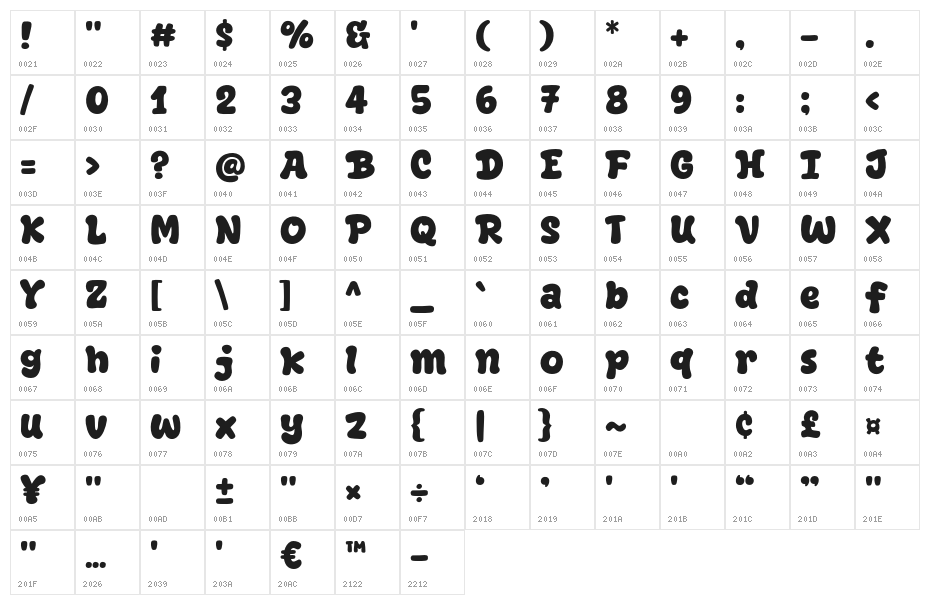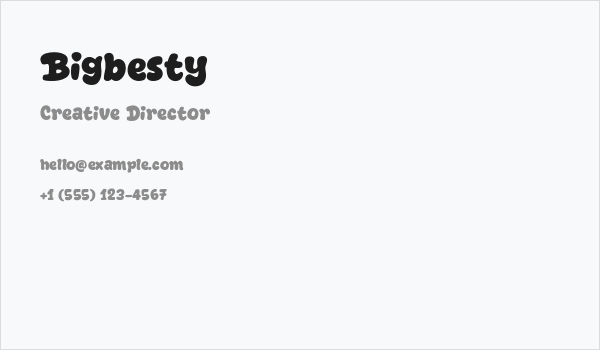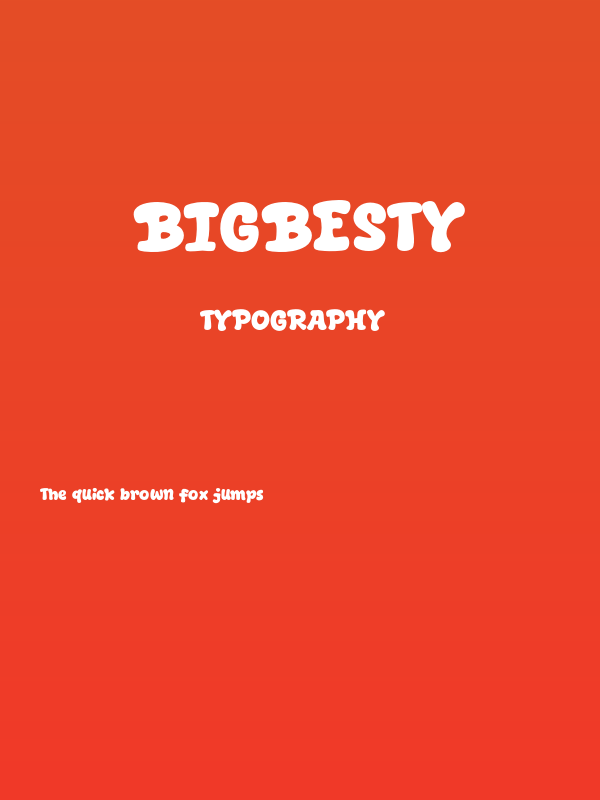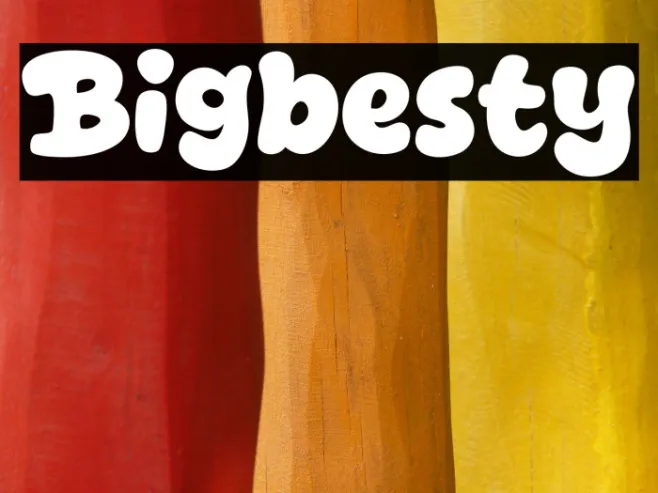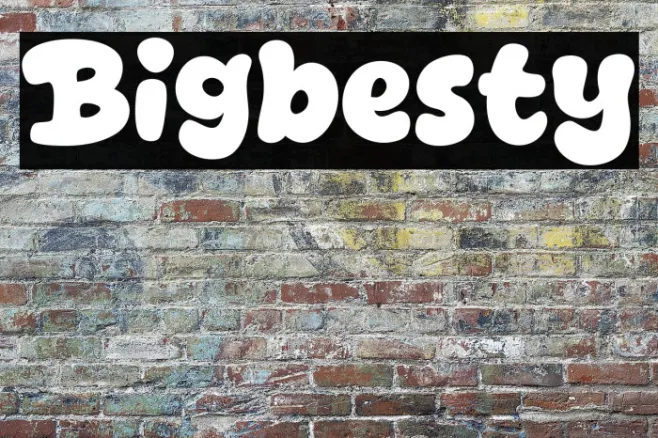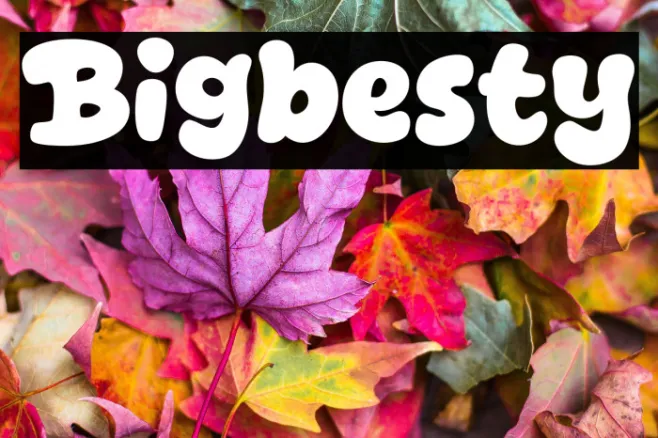
Bigbesty Font
A bold, rounded, and playful font with a bubbly appearance, suitable for informal and fun designs.
| Proposed Projects | Children's books, playful branding, casual posters. |